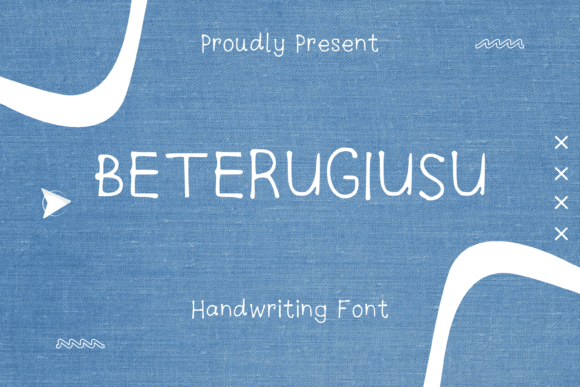
The Sweet Spot: Discovering Beterugiusu Font
I’ll never forget the moment I stumbled upon Beterugiusu Font while working on a whimsical craft project for a client. I was on a mission to find the perfect handwritten font that could capture the playful essence of the design. Hours of scrolling through font libraries had left me frustrated, until I laid eyes on Beterugiusu. Its sweet, friendly curves instantly won me over, and I knew I had found the one. In this article, I’ll share my love for Beterugiusu, its unique features, and how to make the most of this beautiful font.
What I Love About Beterugiusu ✨
- ✅ Natural and Unique Style: Beterugiusu’s handcrafted feel makes it perfect for a wide range of designs, from whimsical crafts to elegant branding.
- ✅ Ease of Use: This font is incredibly versatile and works beautifully in various design contexts.
- ✅ Emotional Connection: Beterugiusu has a way of adding a personal touch to your designs, making them more relatable and engaging.
While Beterugiusu is an amazing font, there are a few minor considerations to keep in mind:
- ⚠️ Legibility at Small Sizes: Like many handwritten fonts, Beterugiusu may lose some legibility when used at very small sizes. It’s best used at larger sizes where its charm can shine.
- ⚠️ Overuse: Due to its beauty, there’s a risk of overusing Beterugiusu in a single design. Balance is key to keeping your design fresh.
The Story Behind Beterugiusu: A Designer’s Inspiration
Beterugiusu was crafted with love by a designer who sought to create a font that feels both personal and approachable. Inspired by everyday handwriting, this font embodies a sense of warmth and friendliness. Its unique style makes it perfect for projects where you want to add a human touch.
Q: What makes Beterugiusu suitable for a wide range of designs?
A: Beterugiusu’s natural and unique style allows it to adapt to various design contexts, making it incredibly versatile.
Q: Is Beterugiusu difficult to read at small sizes?
A: Like many handwritten fonts, Beterugiusu may lose legibility at very small sizes. It’s best used at larger sizes to maximize its impact and readability.